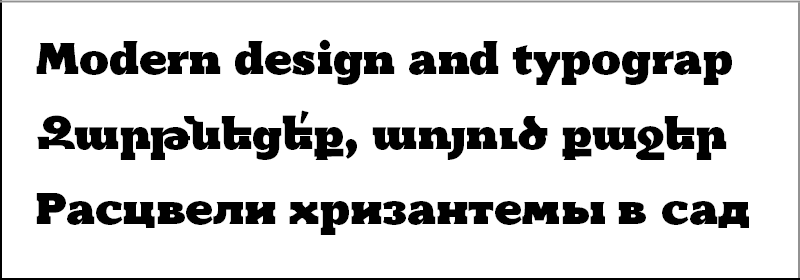
Display typefaces, Edik Ghabuzyan
GHEA Narek Poster
Design date: 2013
The font family includes Armenian, Cyrillic and Latin alphabet systems.
The font can be used as a Display or Title font.